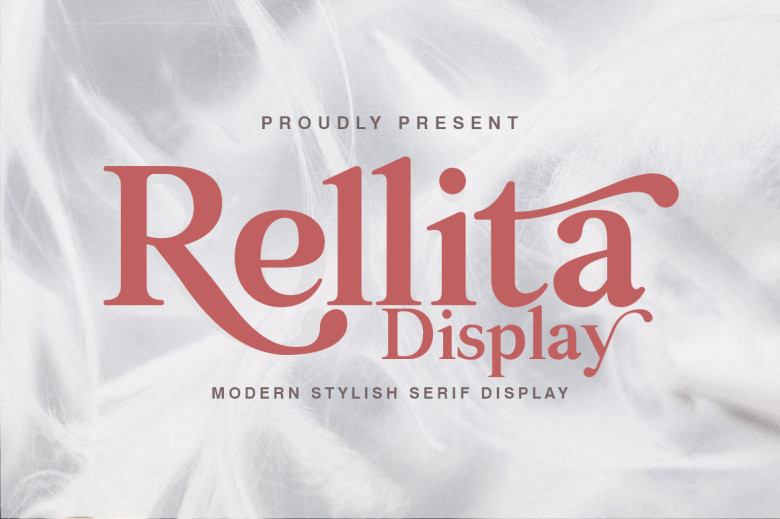
Rellita Display Font
Rellita Display is an elegant, modern, contemporary serif typeface that boasts an elegant, sophisticated, distinctive, and sophisticated appearance. This font was intended for use in branding magazines, Social Media posts, Branded logos and website headers, or simply used as text overlay on backgrounds pictures – among many other projects that require elegant finishes!
Rellita Display comes complete with its own full set of Swash Ligatures that stand-up as well as any discretionary ones required – it even contains both uppercase characters numbers punctuation!!
Rellita Display Serif Font